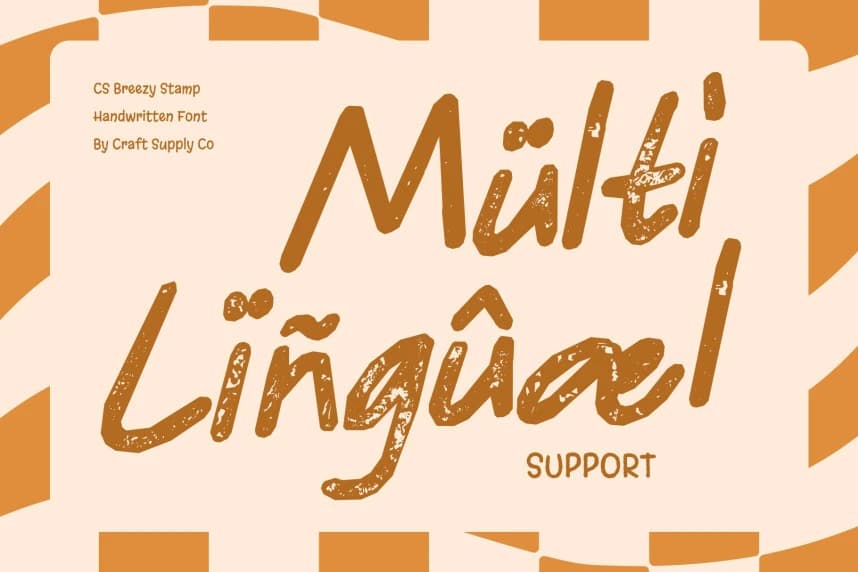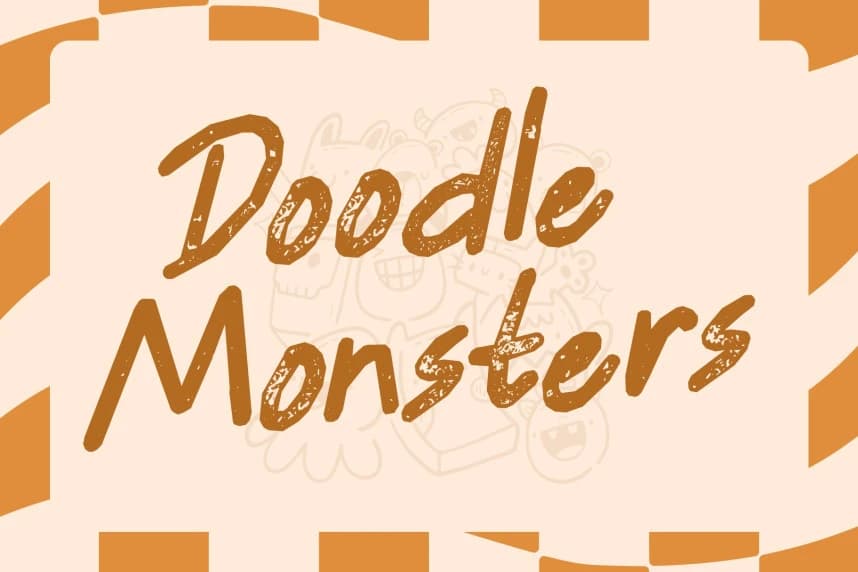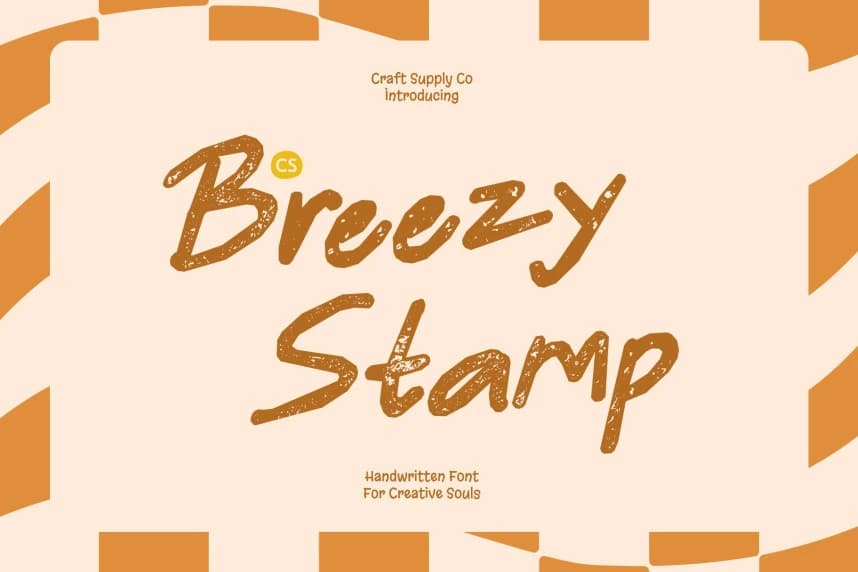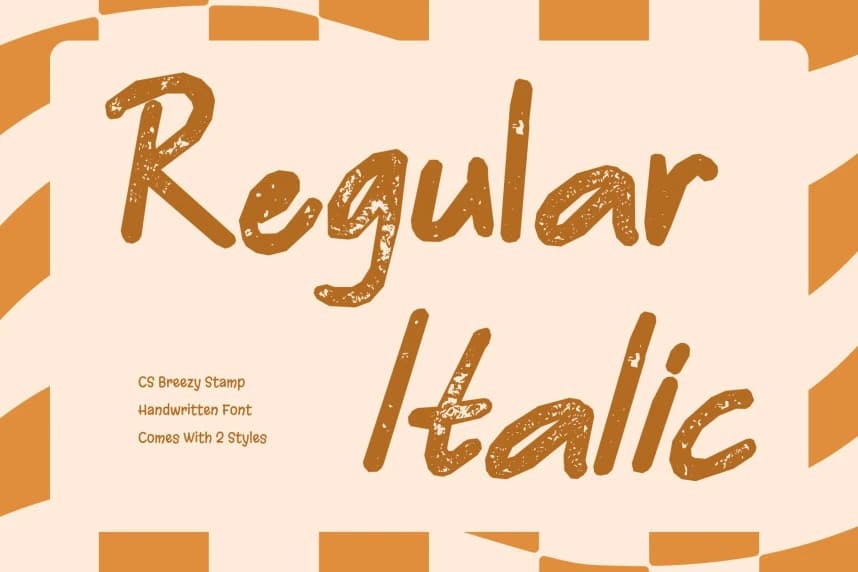
CS Breezy Stamp Font
CS Breezy Stamp Font – Fresh Handwritten Energy with Textured Charm Lively Sans Serif with a Stamped Touch This brings a bright handwritten sans serif style to life with a subtle stamped texture that adds warmth and authenticity.